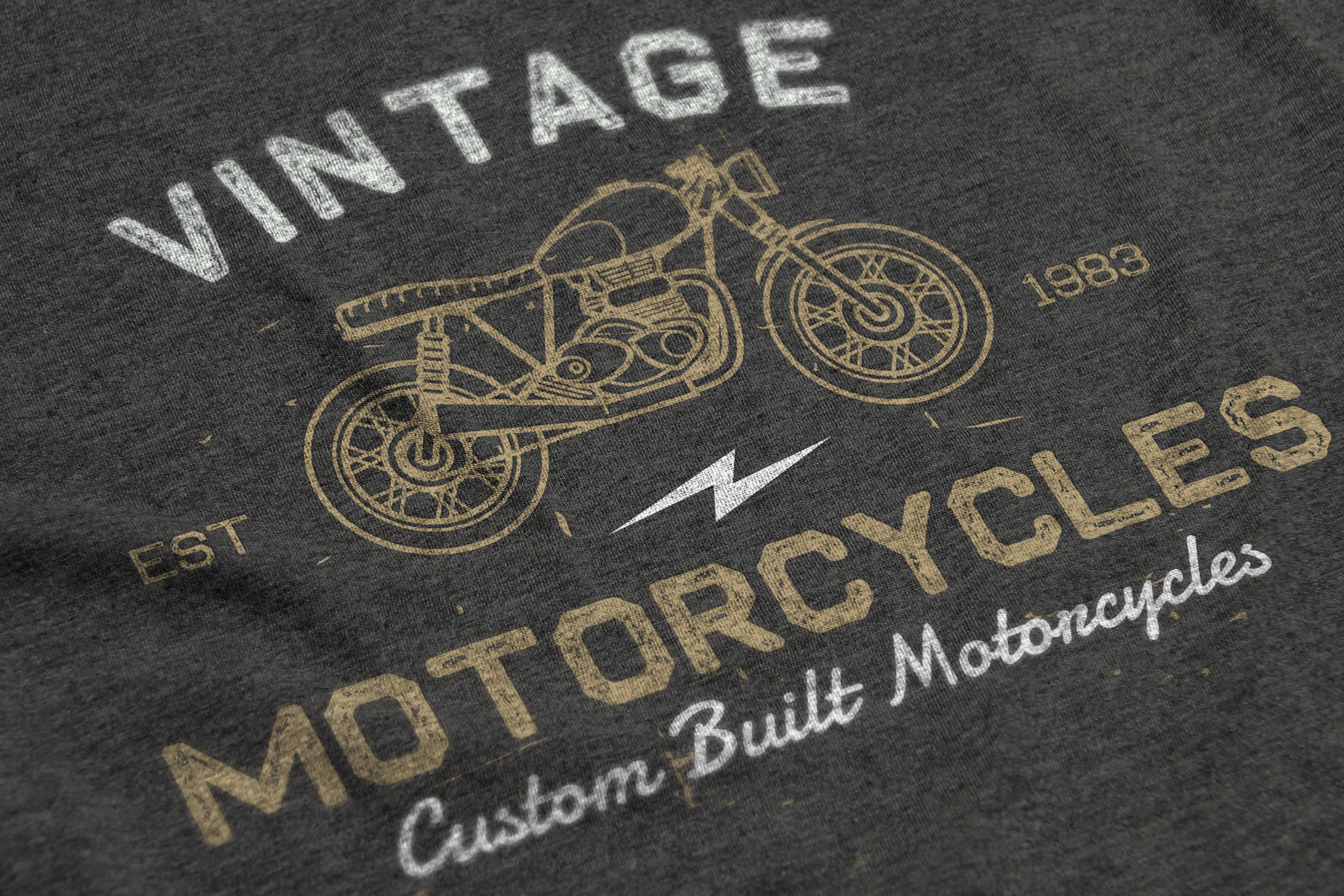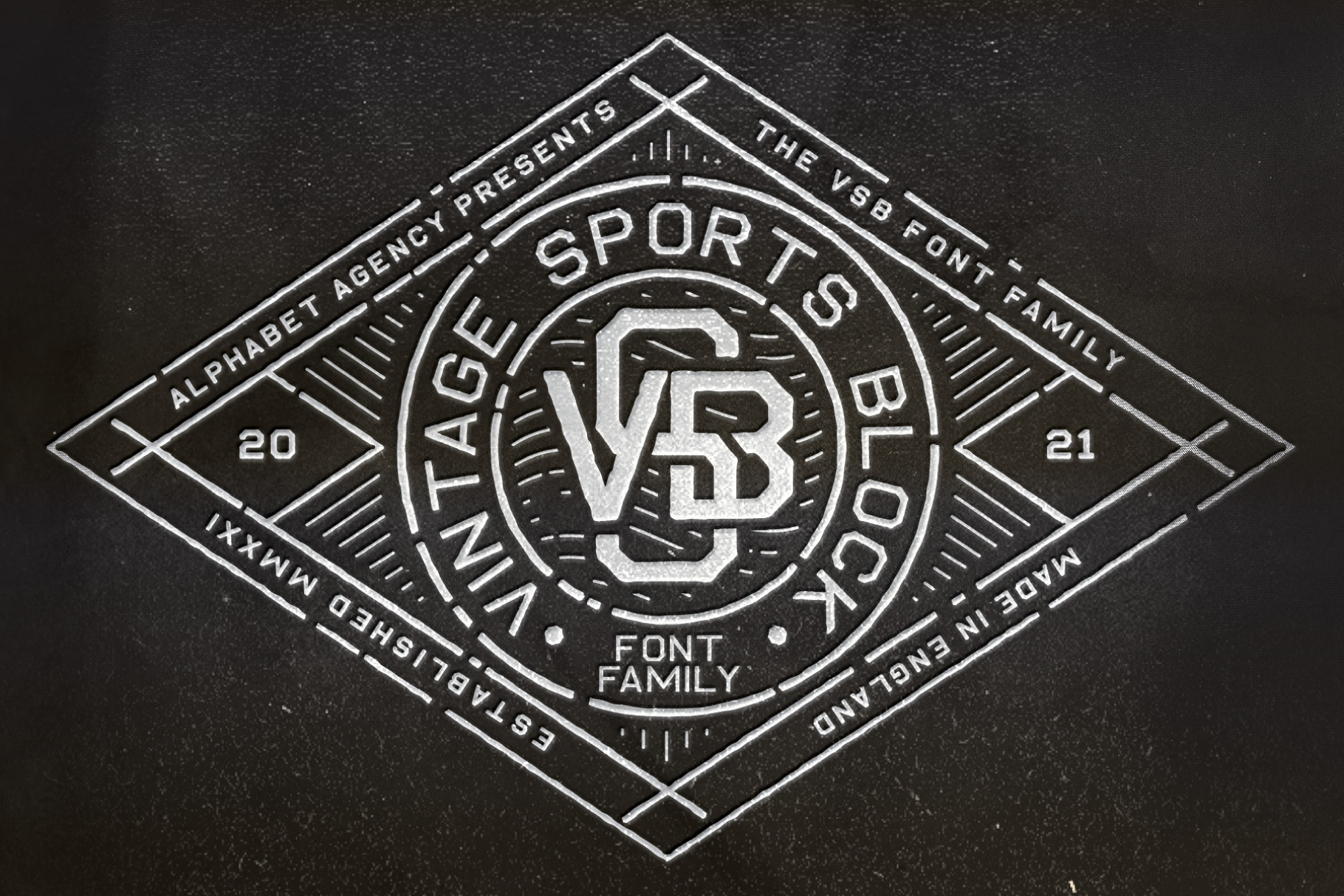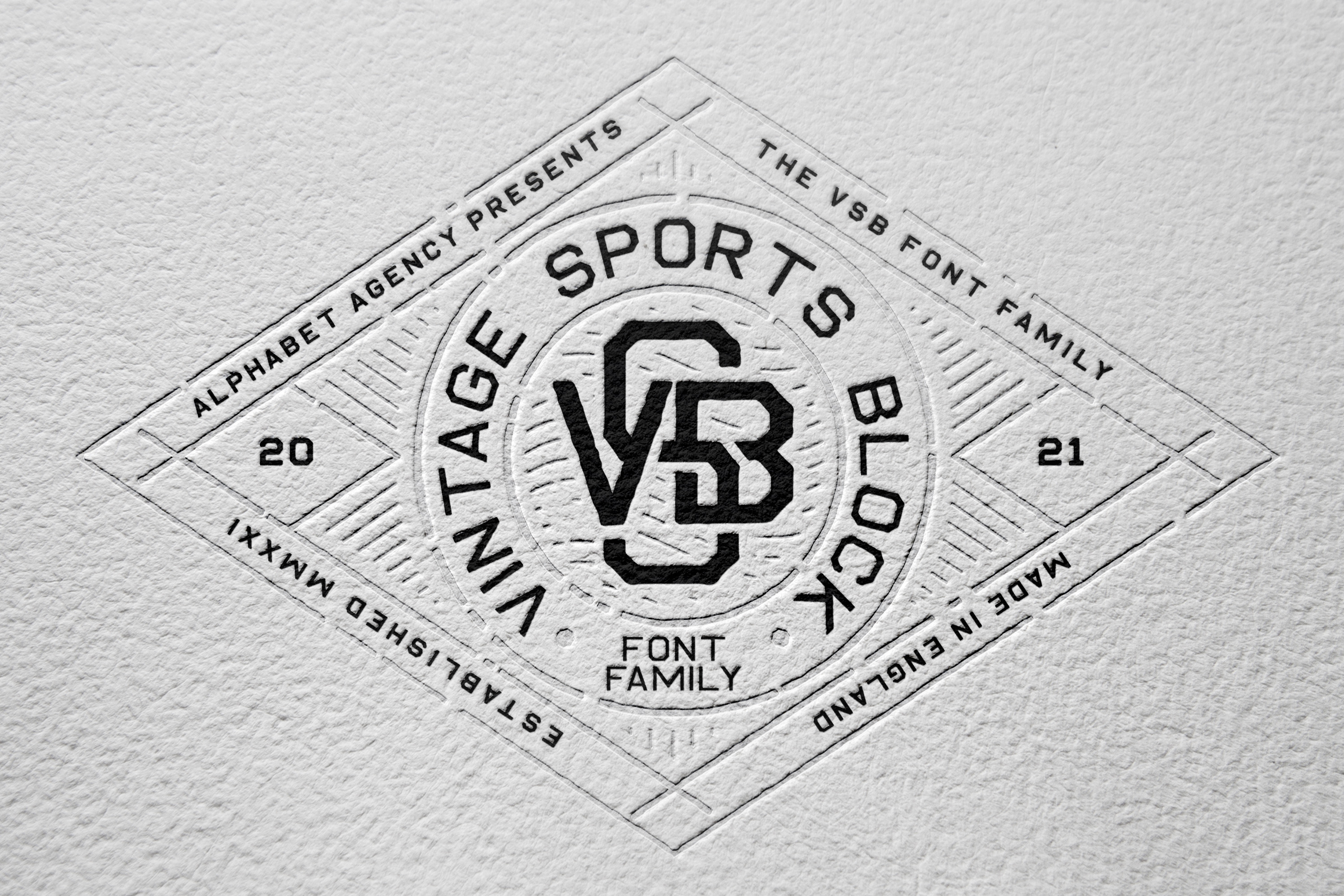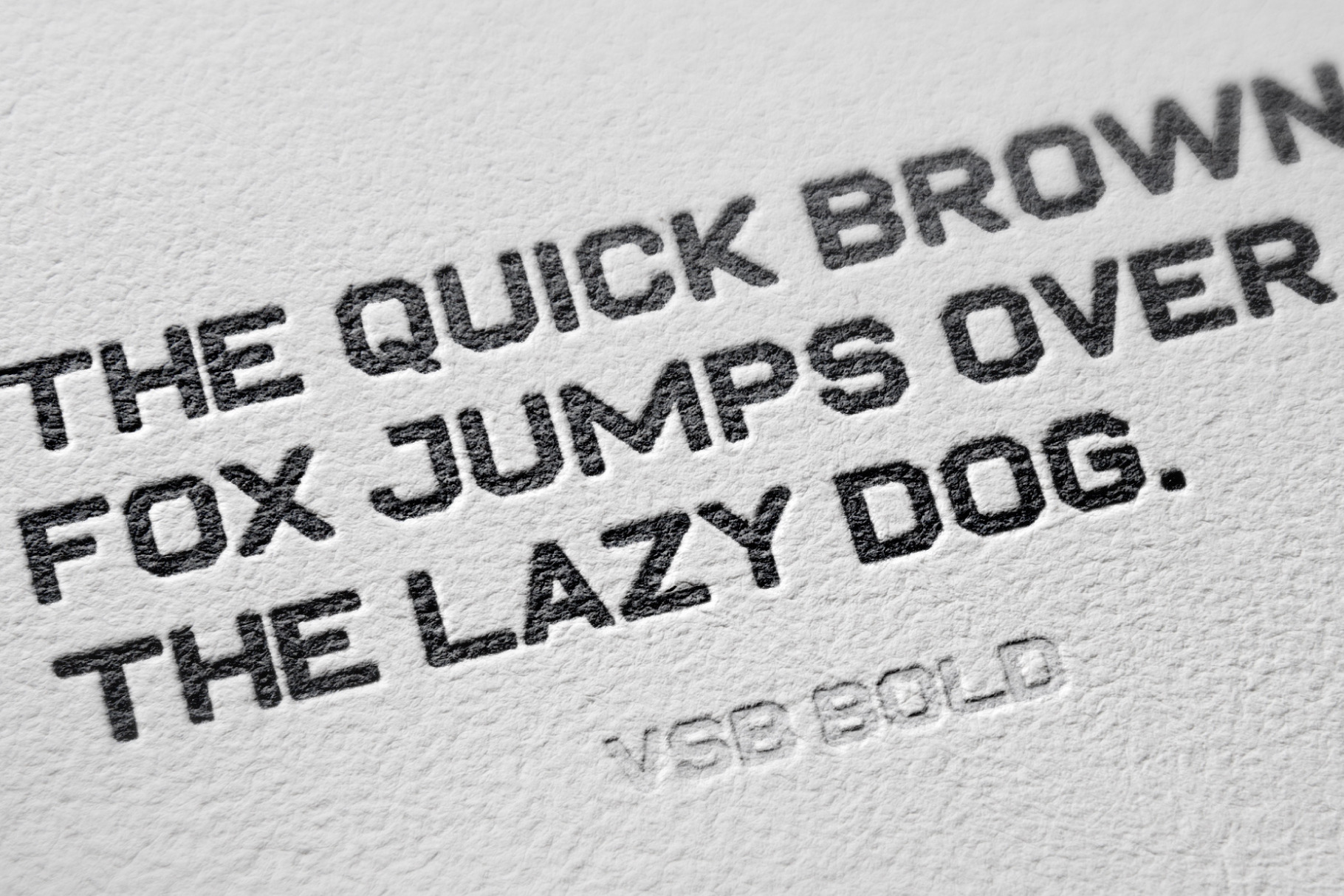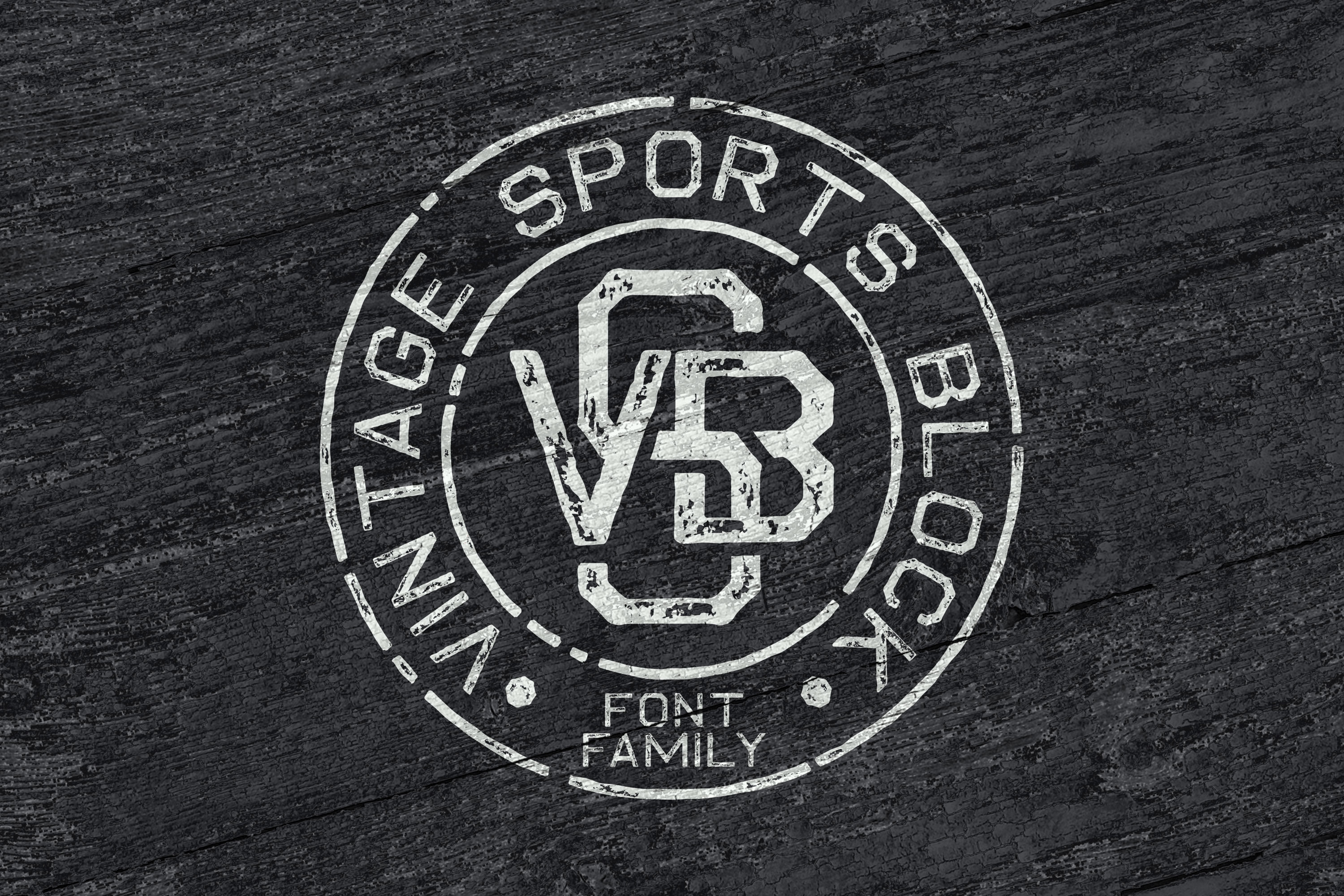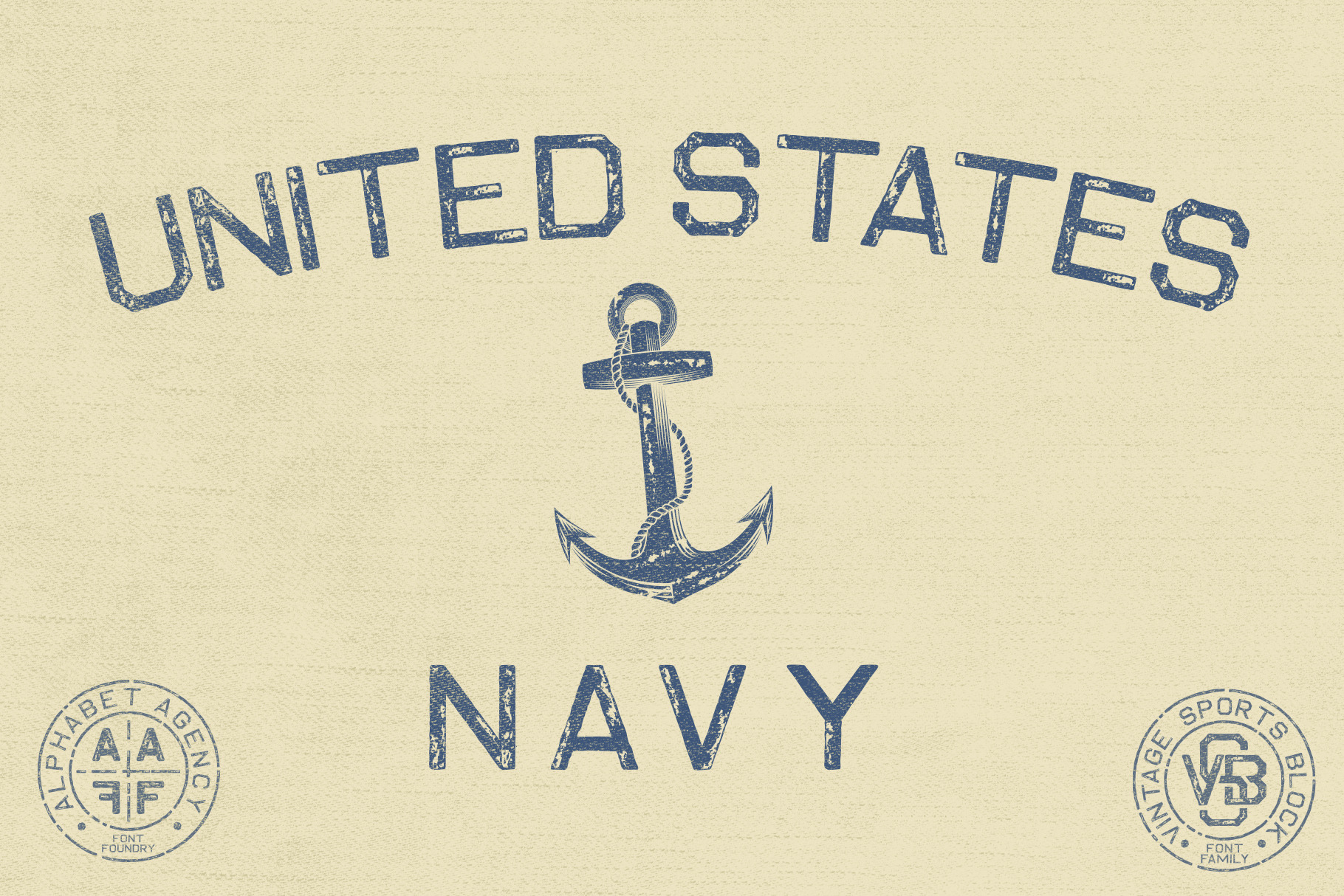
Vsb Font Family by Alphabet Agency | Creative Market
Alphabet Agency presents the VSB font family. The family includes four fonts; VSB, VSB Distressed, VSB Bold and VSB Distressed Bold. The fonts have vintage block print all capital characters with dimensions that allow them to read clearly while being pleasant to view. The lack of sharp corners and straight edges creates a vintage look without loosing readability or boldness. Each font includes capital letters, numbers, punctuation and international Latin letters. File formats for each font include OTF, TTF, WOFF and WOFF2. Feel free to take a look at the rest of our great fonts here https://creativemarket.com/AlphabetAgency | VSB FONT FAMILY | Alphabet Agency